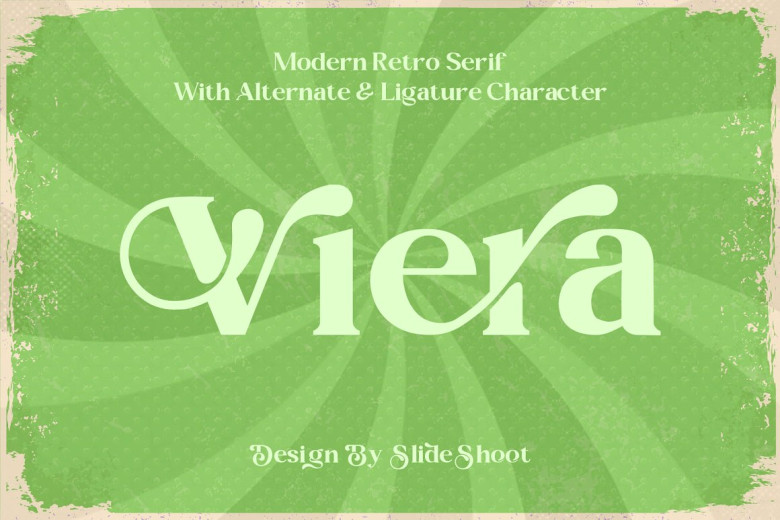
Viera Font
Viera strong serif font is an elegant vintage and contemporary typeface ideal for creating logos, titles and branding magazines, product packaging and invitations. The font includes Ligatures as well as alternative forms that give every project an added glimmer of sophistication.
Viera Retro Serif Font